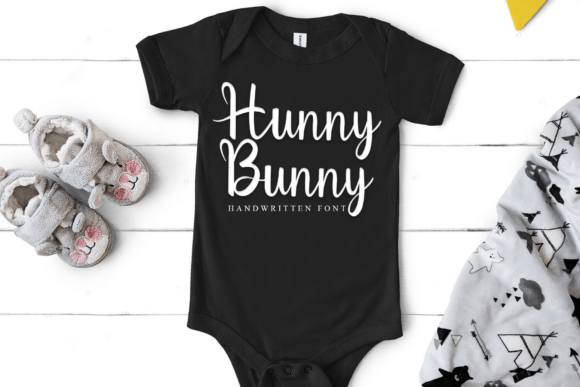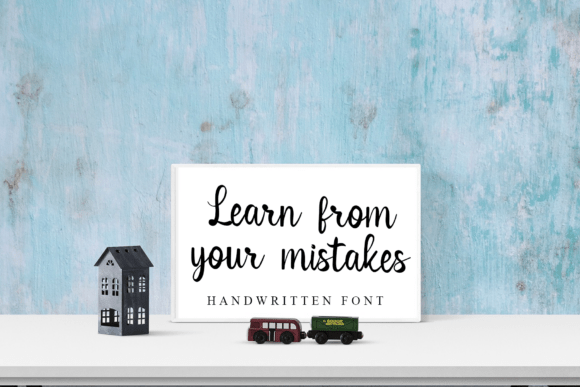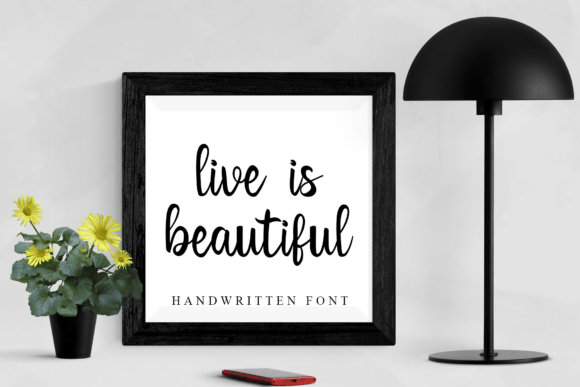
Hello Homework Font
About the Hello Homework Font
Step up your design game with Hello Homework Font, a font that exudes confidence and style. Hello Homework is a unique and elegant font specially designed just for you. This font is made with a professional hand touch and is perfect for your projects. This font is very suitable for use in your work projects, all greeting cards from wedding invitation cards, birthdays, all types of parties.
Hello Homework’s elegant, handwritten style makes it ideal for projects requiring a touch of personal warmth. It excels in headlines, short text blocks on invitations or greeting cards, and branding elements needing a handcrafted feel. Avoid using it for body text or lengthy paragraphs; its unique character is best showcased in smaller, impactful uses.
Pair Hello Homework with a clean sans-serif like Open Sans for a balanced contrast, or a playful script font such as Pacifico for a more whimsical effect. For a more sophisticated look, consider pairing it with a classic serif like Garamond.
The overall personality of Hello Homework is friendly and approachable yet sophisticated. It’s best suited for brands and projects aiming for a balance between personal connection and professional polish, such as stationery design, boutique branding, or event invitations.
Hello Homework Font Usage Examples
Hello Homework Font Example